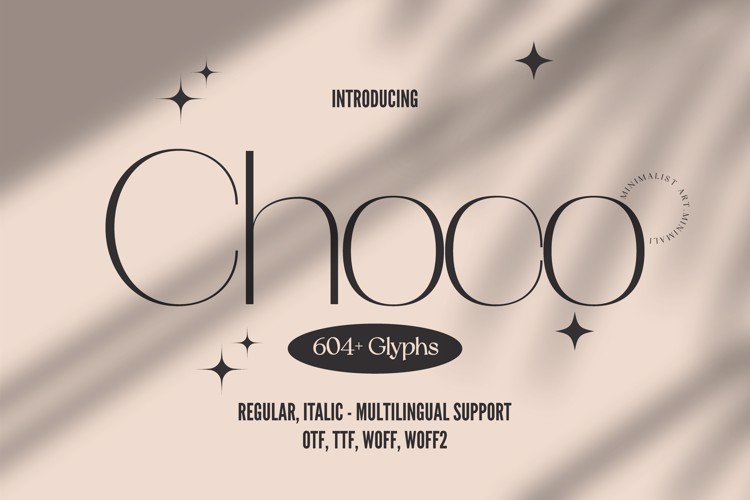
Choco Font
๐จ Font Name: Choco by Minimalist Art Studio
๐จ Font Description: Choco is a rounded minimalist sans serif with over 600 glyphs and multilingual supportโperfect for lifestyle branding, soft packaging, and modern editorial design.
โ Complete Latin set + multilingual diacritics
โ Alternates, stylistic sets & ligatures
โ Numbers, small caps, and extended punctuation
โ Bonus italics and family styles